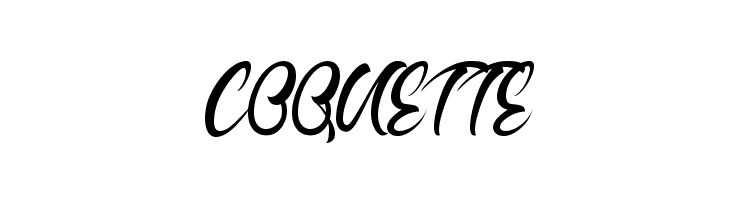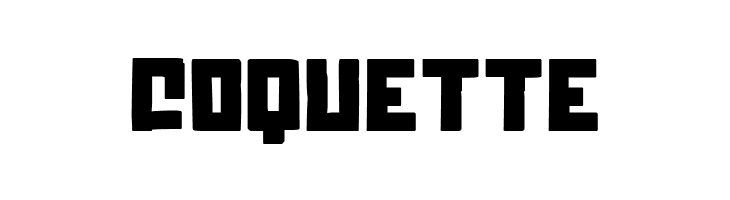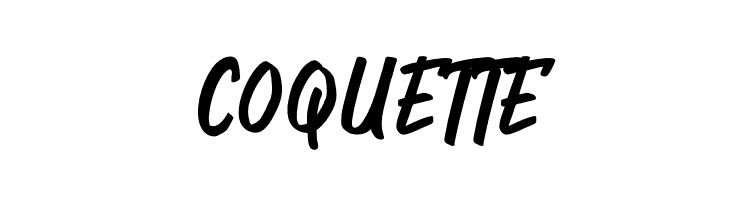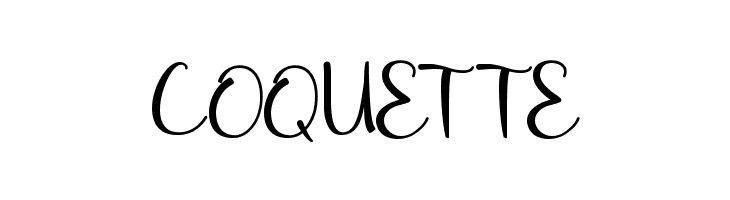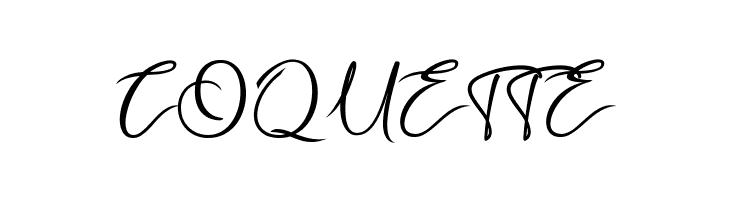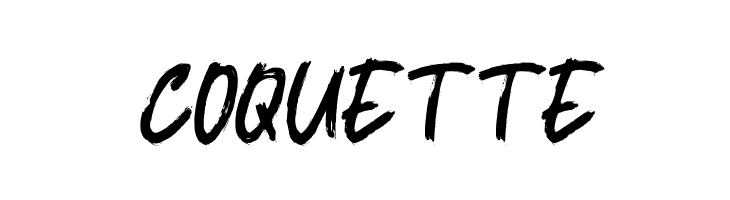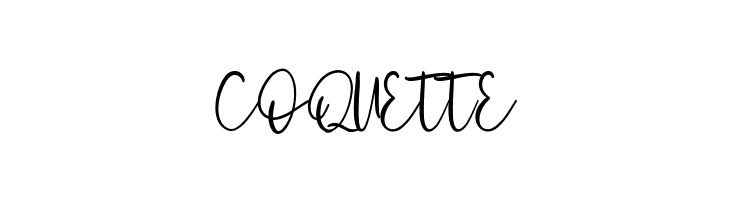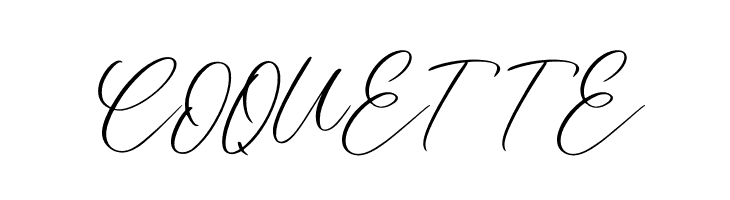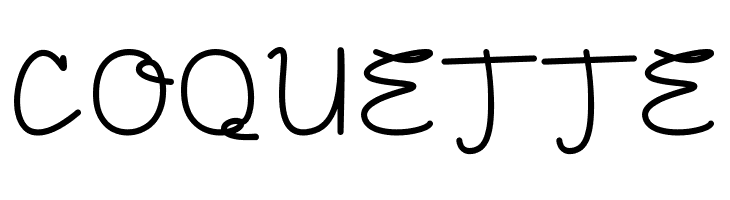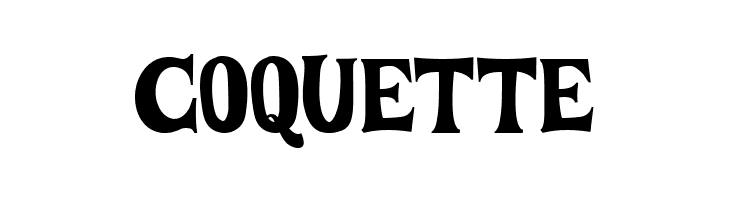
An ornate script font with intricate floral embellishments.
Ornate decorative swashes and flourishes.
A bold, playful handwritten font with smooth, rounded characters.
A bold, playful script font with a whimsical, hand-drawn style.
A playful, handwritten-style font with tall, narrow letters and consistent stroke width.
A bold, distressed font with a rugged, chaotic texture.
A bold, 3D font with a shadow effect and modern aesthetic.
A bold, outlined decorative font with high contrast and a modern, dynamic style.
A modern dotted font with evenly spaced dots forming each character.
A bold, robust font with thick strokes and a strong presence.
A bold, playful script font with a festive, dynamic style.
A playful, bold font with rounded characters and whimsical bunny-themed glyphs.
A playful, outlined font with a hand-drawn, cartoonish style.
A playful, bold font with rounded, whimsical characters.
A playful, bold font with a shadow effect, ideal for creative projects.
A cursive, handwritten font with elegant, flowing italic characters.
A playful, bold font with rounded, thick strokes and a whimsical style.
A bold, playful font with bunny ears on each letter, perfect for whimsical designs.
A playful, handwritten script font with dynamic strokes.
A bold, playful font with a hand-drawn, quirky style.
A bold, playful font with a hand-drawn, dynamic style.
A playful, hand-drawn font with a quirky and dynamic style.
A bold, playful font with a hand-drawn, irregular style.
A playful, angular font with a quirky and dynamic style.
A bold, playful font with blocky, dynamic characters.
A bold, playful font with chunky, irregular characters and a dynamic style.
A bold, playful font with irregular, dynamic character shapes.
A playful, hand-drawn font with a quirky and dynamic style.
A playful and quirky font with bold, irregular letterforms.
A bold, playful font with a chunky, hand-crafted appearance.
A bold, hand-drawn font with a playful and energetic style.
A modern, geometric font with rounded edges and consistent height.
A playful, rounded font with smooth curves and consistent line thickness.